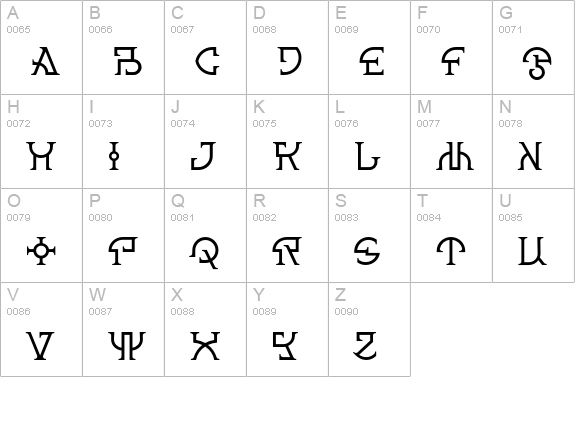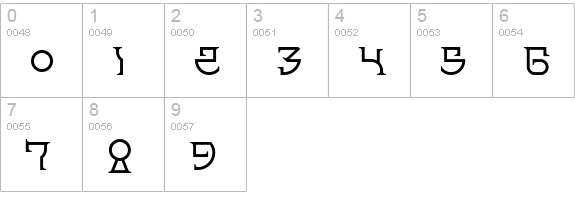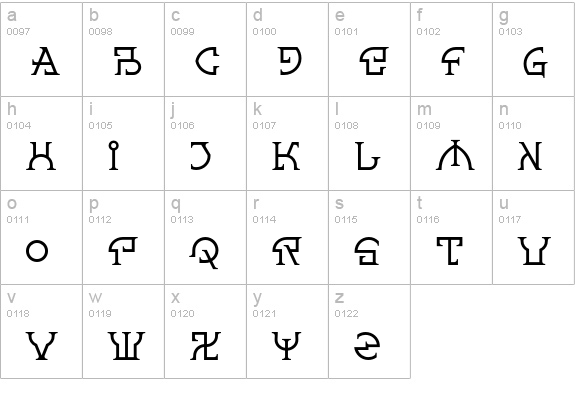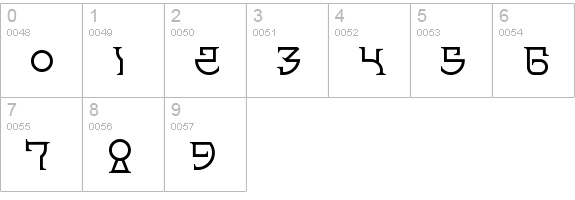
Spanner-AGauge Font Details
Spanner-AGauge font is a stunning display font that captures attention with its bold and unique design. It exudes a sense of strength and confidence, making it perfect for headlines, logos, and other attention-grabbing designs. With its thick and curvaceous letterforms, Spanner-AGauge font is sure to make a lasting impression. The sharp angles and intricate details within each character add a touch of sophistication and elegance to any project. Not only does Spanner-AGauge font offer a visually striking appearance, but it also provides excellent legibility, ensuring that your message is communicated clearly and effectively. Its well-defined contours and spacious letter spacing make it easy to read, even at smaller sizes. What sets Spanner-AGauge font apart is that it is available for free! That's right, this incredible font can be freely downloaded at FontsMarket.com. Now you can elevate your designs without breaking the bank. Whether you're a professional graphic designer or a hobbyist, Spanner-AGauge font gives you the opportunity to create stunning visuals without any cost. So why wait? Download Spanner-AGauge font now and unleash your creativity. With its bold and unique design, impeccable legibility, and free availability, this font is a must-have for anyone looking to make a statement with their designs. Don't miss out on this fantastic opportunity to take your projects to the next level. Get Spanner-AGauge font today and let your creativity soar!